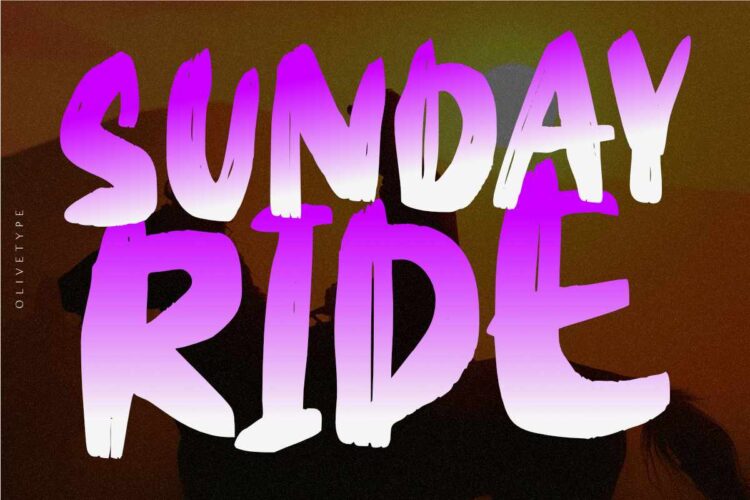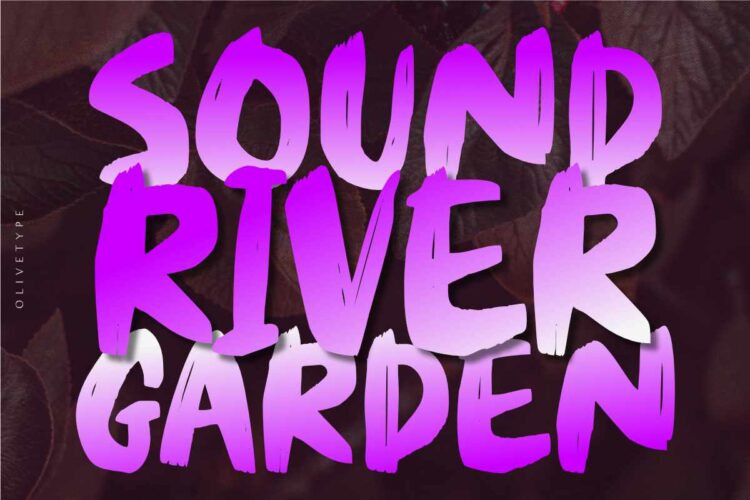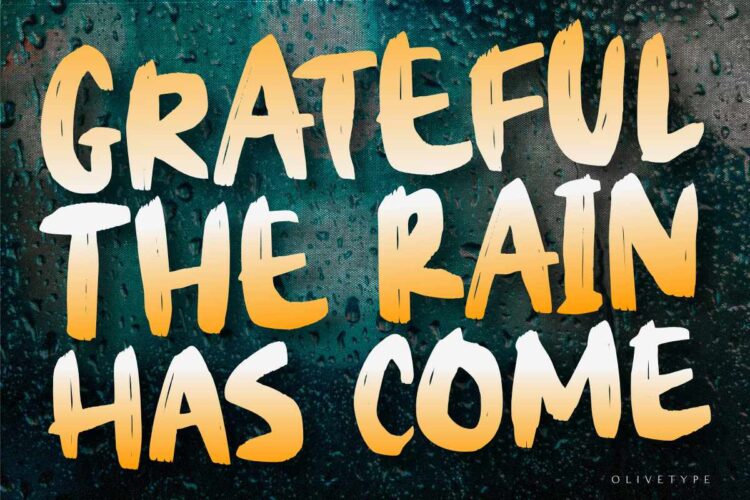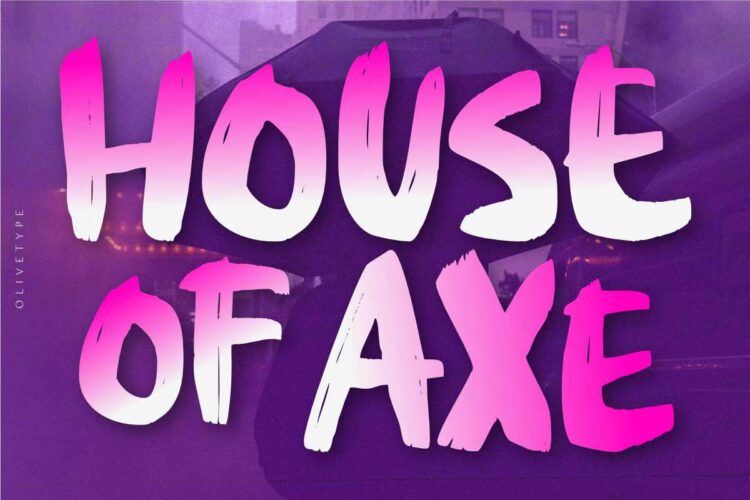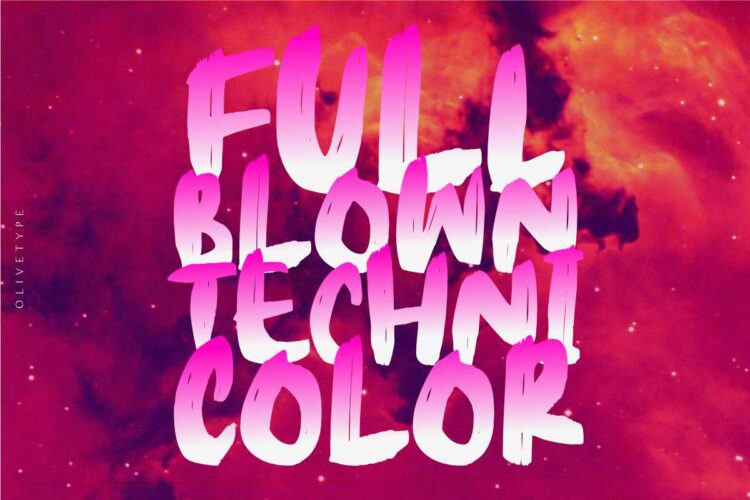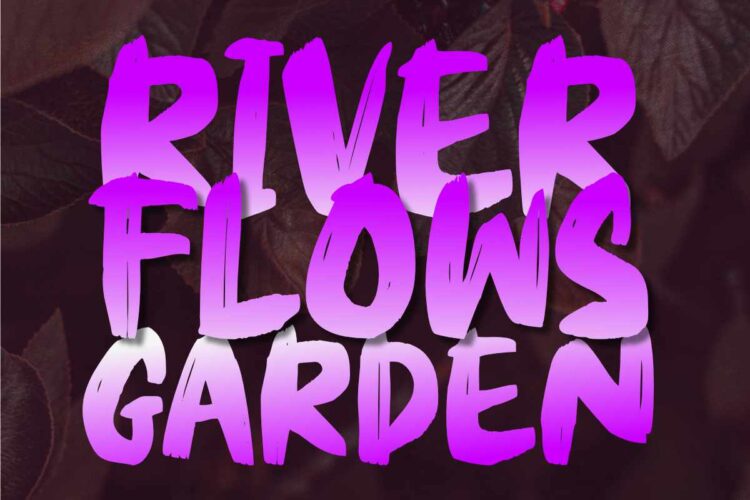
Sunday Ride is a new hand-painted brush typeface with a carefree, youthful, and playful vibe. It is perfect for logos and headlines where you want to create a feeling of warmth, fun, and energy. With a hand-drawn, organic feel, this font is a must-have for all creatives out there. Come in and enjoy the ride!